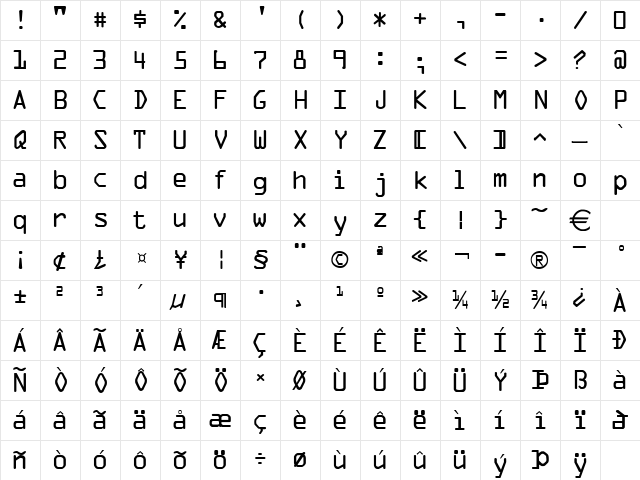
OpticalC Normal
Design Context for OpticalC Typeface
OpticalC is a composed and adaptable typeface that performs quietly and consistently across a wide range of design contexts.